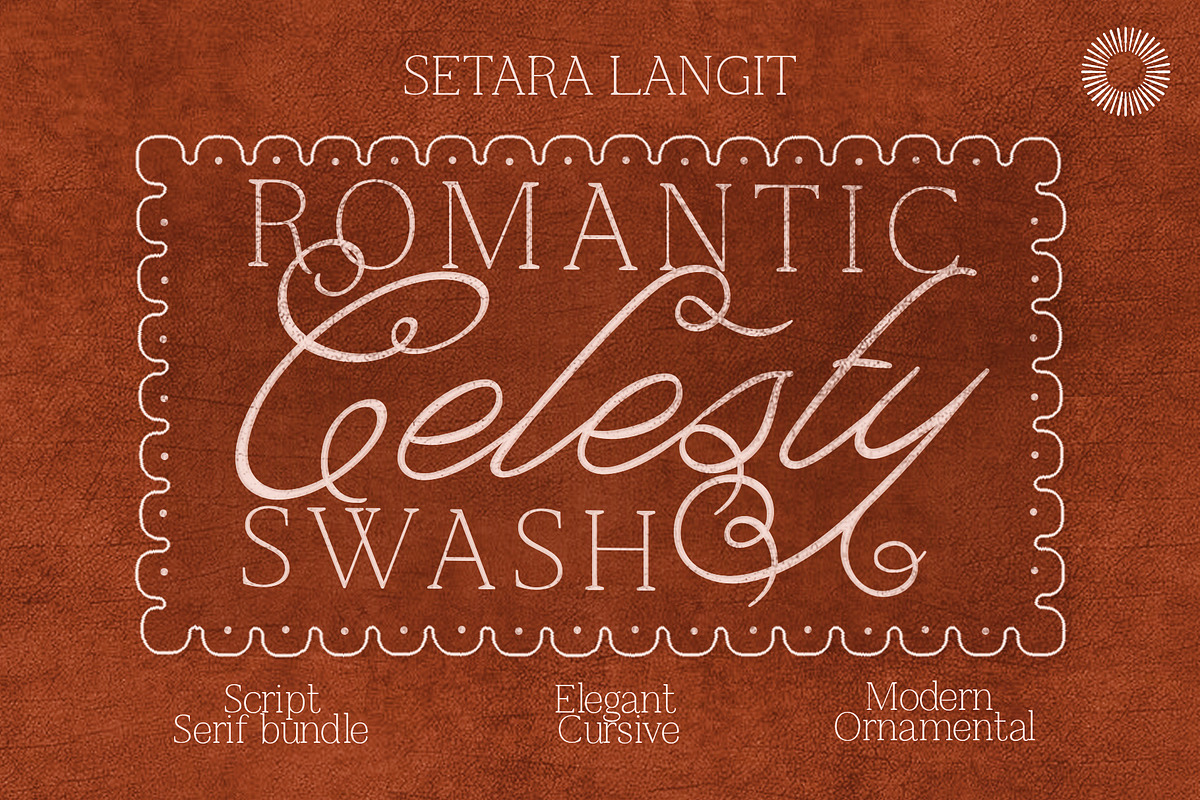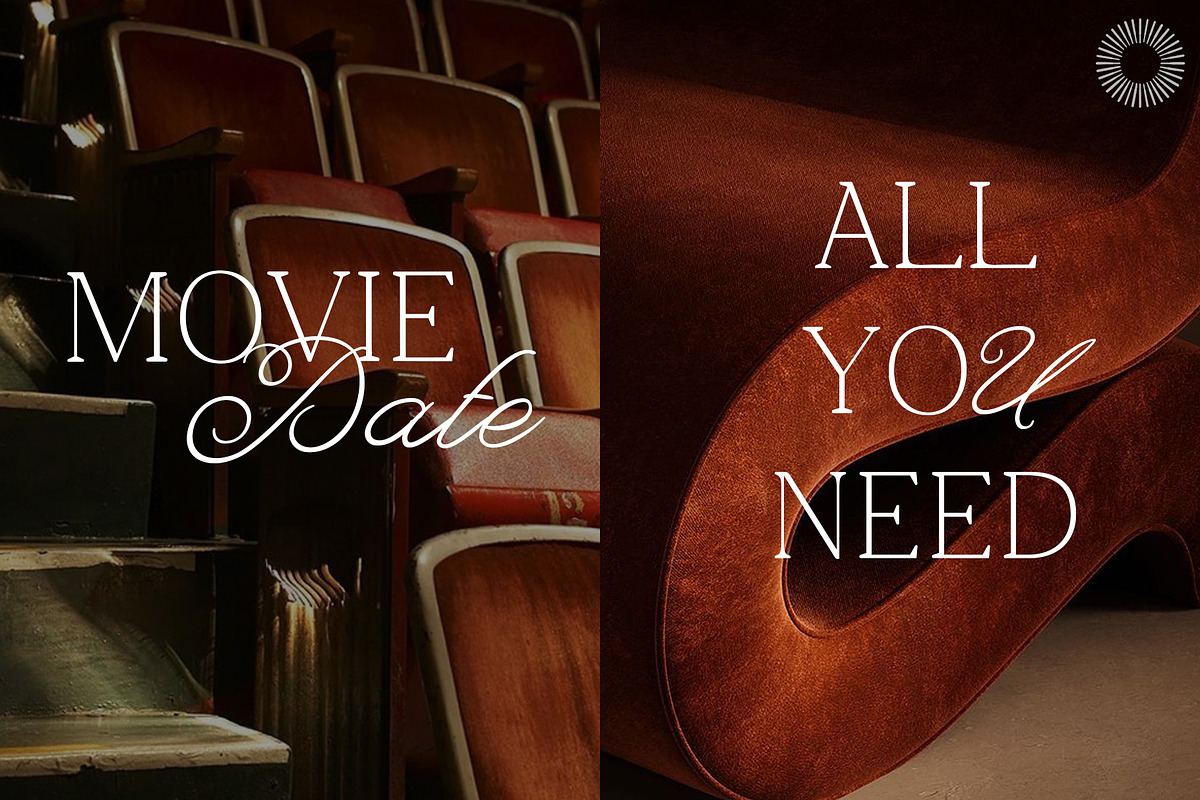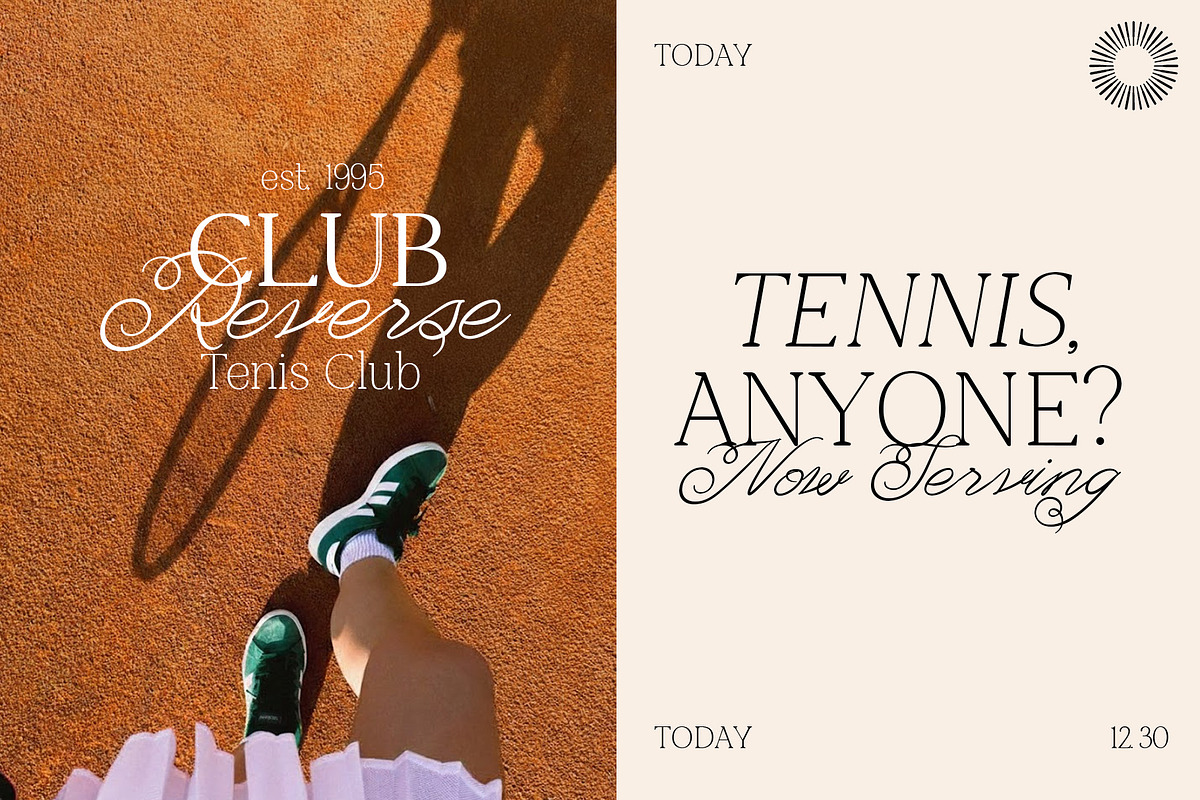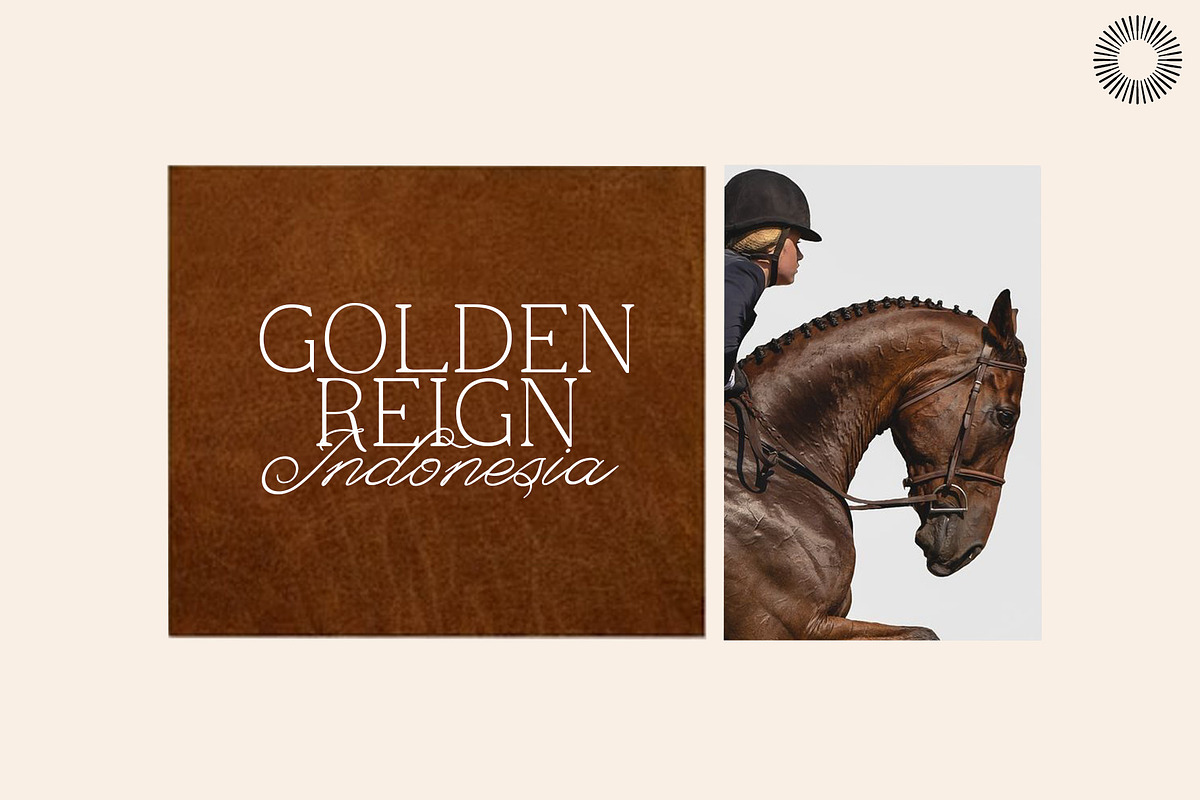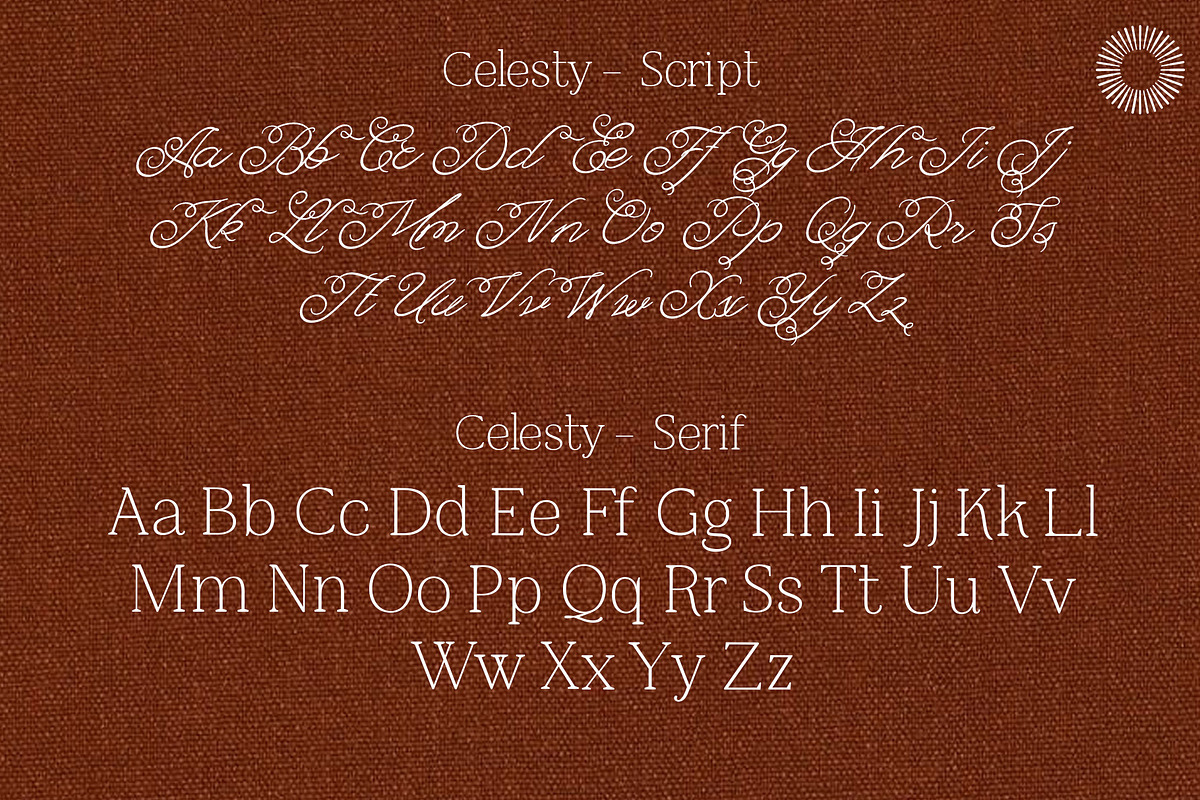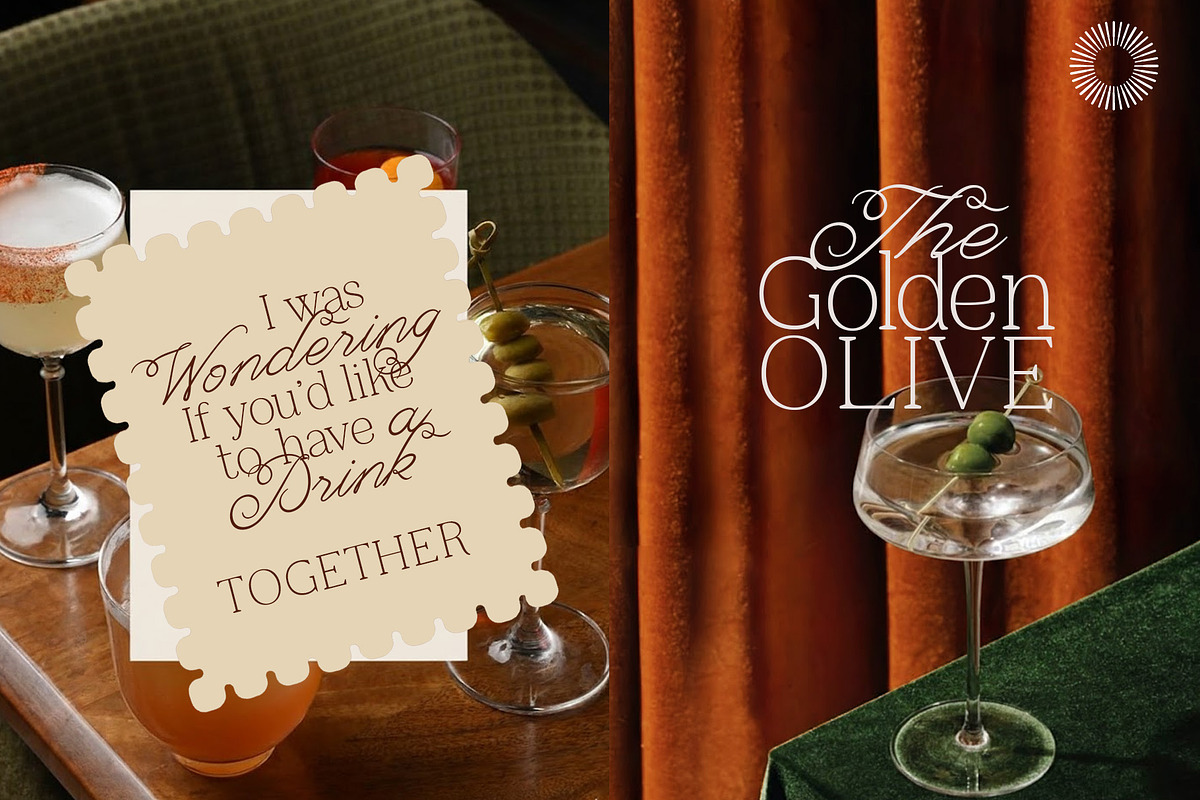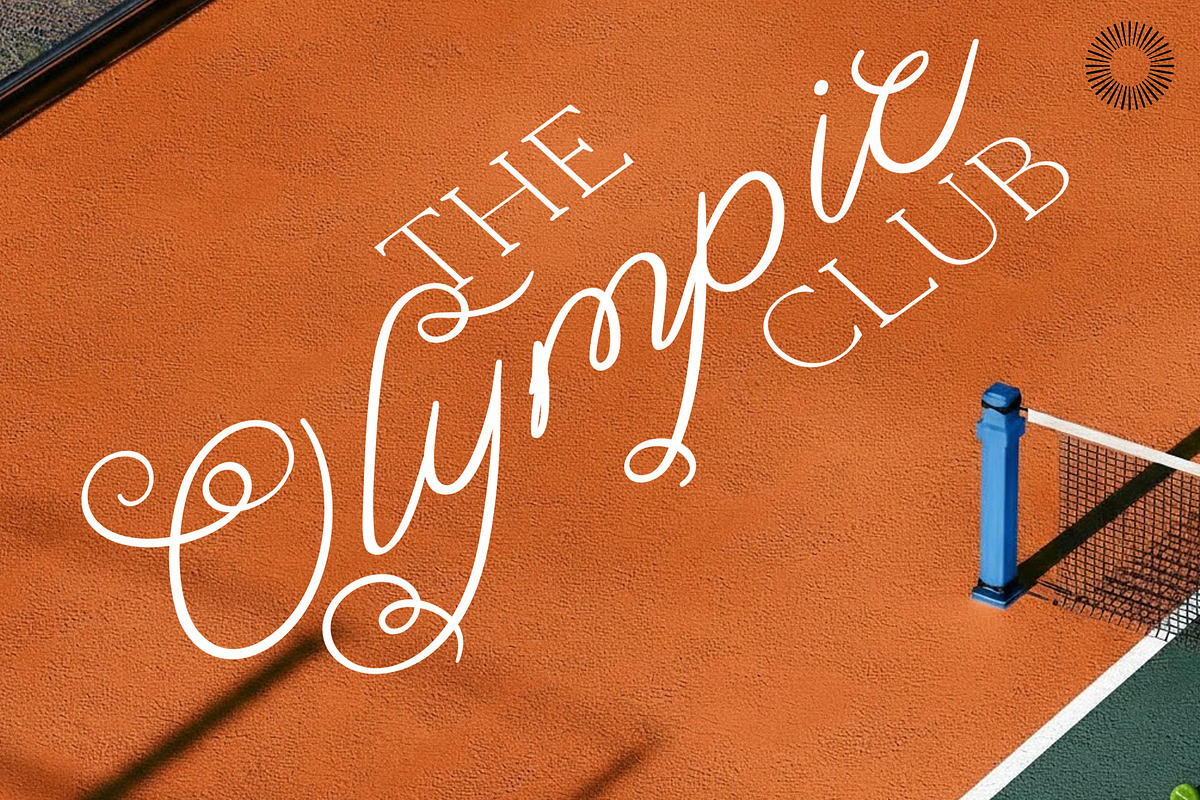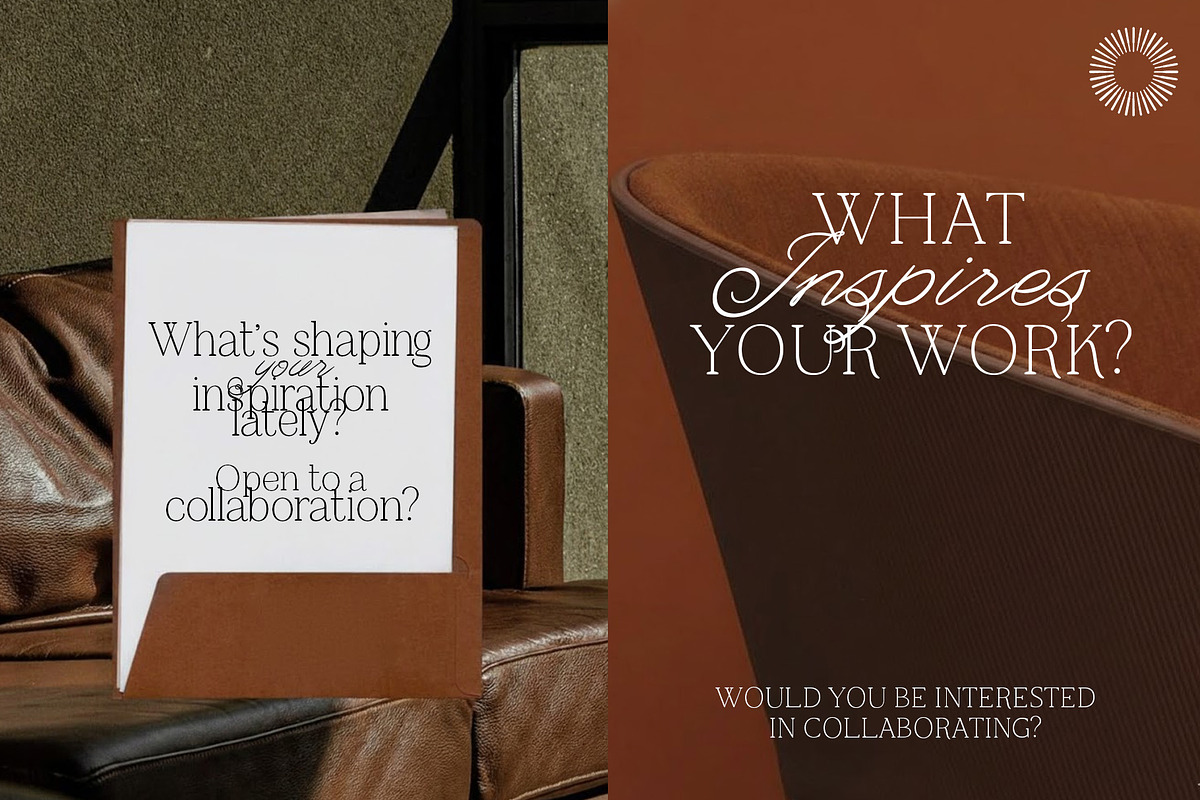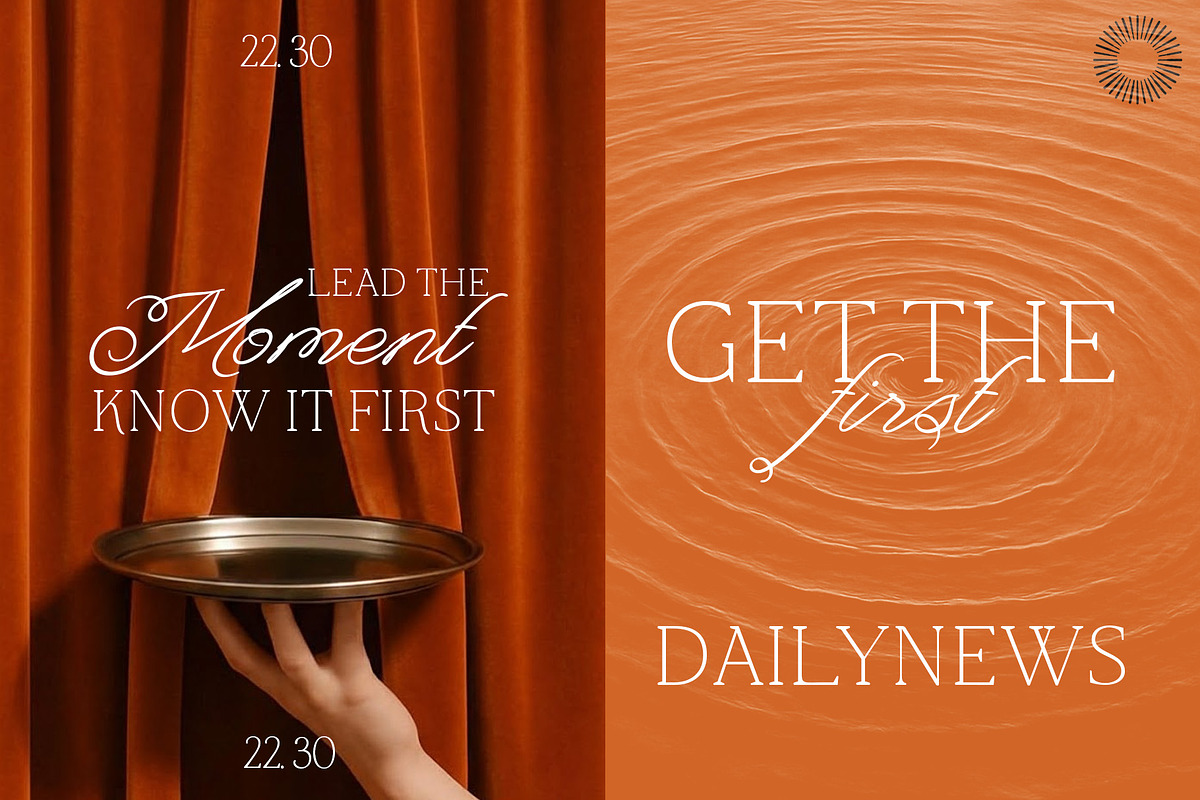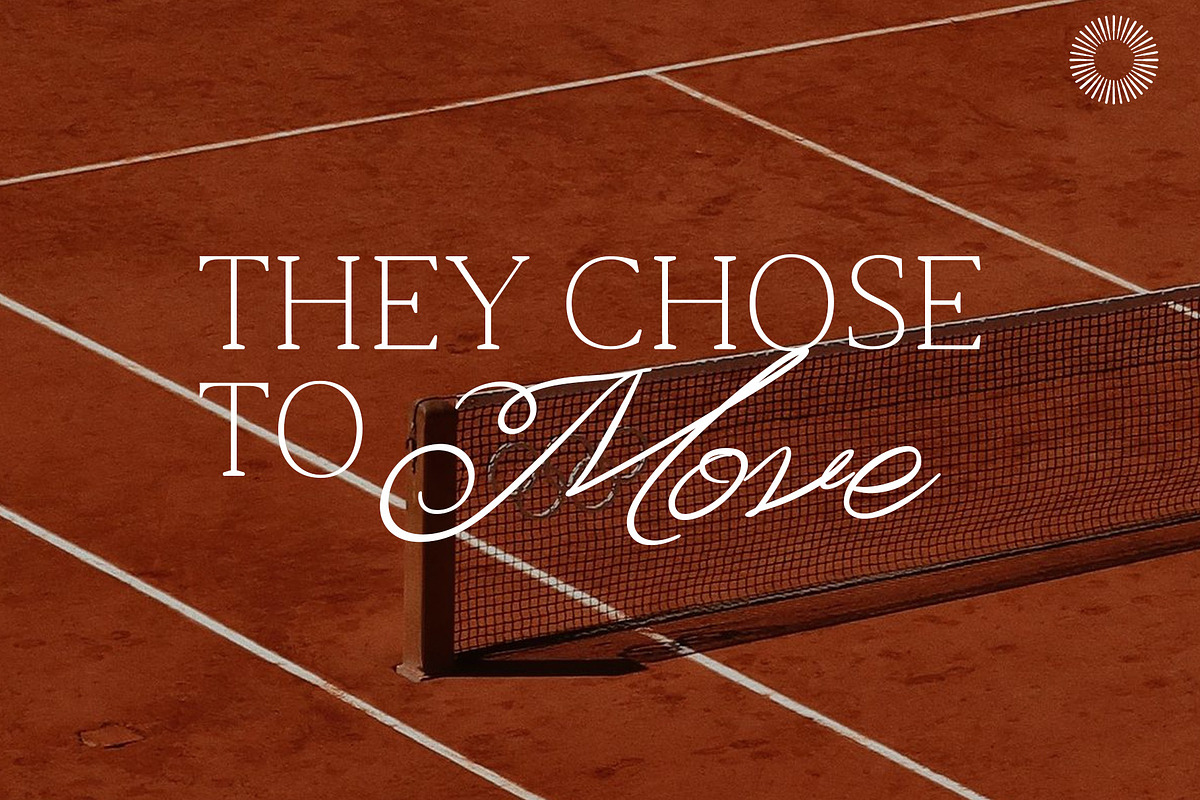
Celesty - Romantic Swash
Celesty - Romantic Script & Serif Font Duo Celesty is a romantic font duo that pairs an elegant swash script with a refined modern serif, designed to create timeless, expressive typography for branding and decorative design. This bundle is inspired by classic romance, vintage elegance, and ornamental lettering,making it ideal for designers who want their work to feel luxurious, feminine, and emotionally engaging. Celesty is not just two random fonts combined. Both styles are designed to work together harmoniously, giving you natural contrast between flowing script and structured serif, perfect for building hierarchy in real design projects.
Fonts Included
- Elegant Swash Script A flowing, cursive script with long swashes and graceful curves. Perfect for brand names, logos, wedding titles, quotes, and romantic headlines.
- Modern Ornamental Serif
A clean yet decorative serif that adds balance and sophistication.
Ideal for subtitles, taglines, supporting text, and editorial layouts.
Together, they create a complete typographic system:
script for emotion, serif for clarity.
Best Used For
- Celesty is designed for display and decorative projects, especially:
- Romantic branding & logo design
- Wedding invitations & stationery
- Beauty, fashion, and luxury brands
- Packaging & product labels
- Editorial headlines
- Quotes & social media graphics
- Posters, greeting cards, and invitations
- Celesty works best for headlines, logos, and short text not for long body paragraphs.